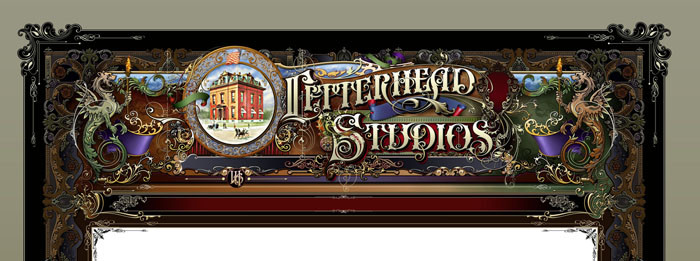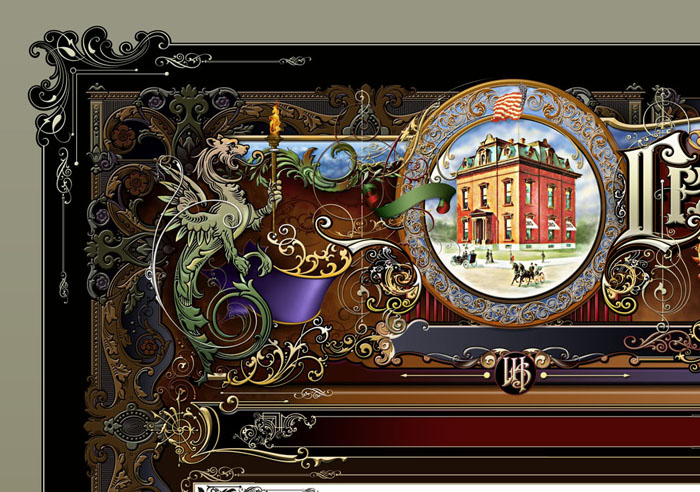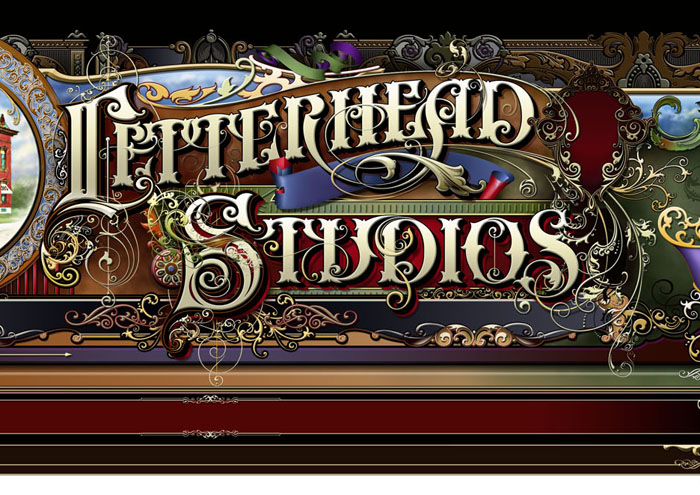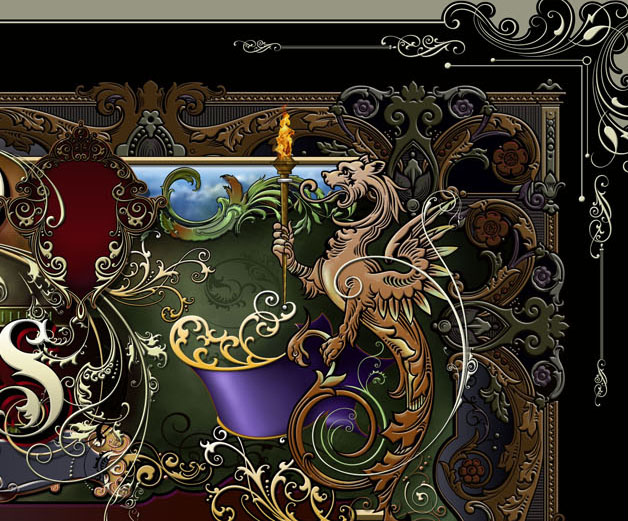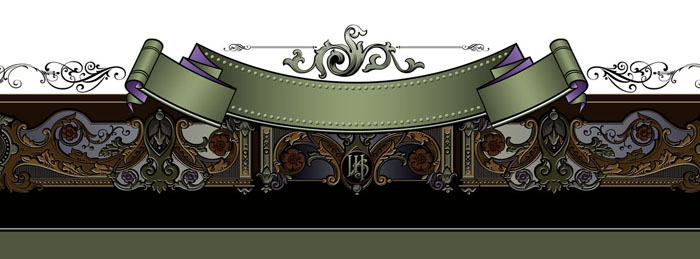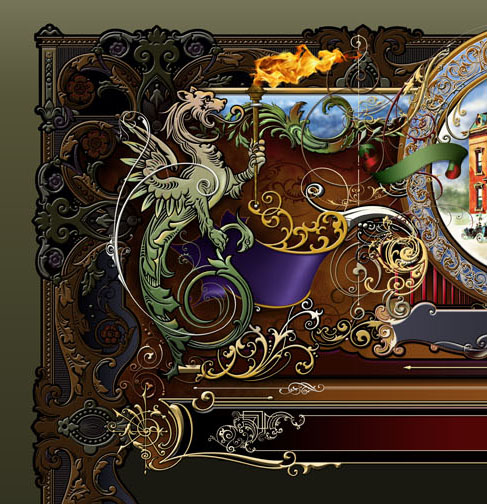
Letterhead Studios Design
Chuck Davis asked me to design him a website front page for Letterhead Studios a new site he is in the process of putting together.
I finished up this front page design for him today and thought it would be good to show you guy's here. The text for different areas on the ribbons and panels will be added by Letterhead Studios and Letterhead Fonts once they have the files .
It took about 170 hours to design and put together with just about 430 layers in photoshop ,all I can say is thank god for auto select...
I finished up this front page design for him today and thought it would be good to show you guy's here. The text for different areas on the ribbons and panels will be added by Letterhead Studios and Letterhead Fonts once they have the files .
It took about 170 hours to design and put together with just about 430 layers in photoshop ,all I can say is thank god for auto select...
other parts
I had the fire blowing to the right but they prefered it going straight up in the finished design.
Myself, I'd like to know a little bit about the three-story building depicted in the vignette. I thought at first that it was the Grand Union Hotel in Fort Benton, MT, http://www.grandunionhotel.com/about-gr ... -hotel.htm but I think that was just because of the way the building is pictured.
The size of the total file was 7000pixels wide at 300dpi = 470meg .all the design was hand sketched and scanned back and fourth to get the hand look we achieve with signwriting like before with the Letterhead Fonts page.
Dave .I was hunting around for a factory scene for this design but could not find one in colour,it also needed to be a corner building as I had already made the flag in the centre at the top and was basing it around that. I found some black and white designs but they would have needed re-drawing and colouring which would have taken many more hours. I found this little studio house in a book but it was not a good copy and was small so I spent some time building all the colour back into it and re doing the backgrounds and line work ,most of the picture work for the house was done using Corels Painter programme on a wacom tablet. If any of you guy's have a nice brewery/chimney scene but it must be a corner building and in colour please could you forward it to me as I still would like to change this part. Chuck is happy with it but I still think a chimney industrial look with red stone buildings would look better.